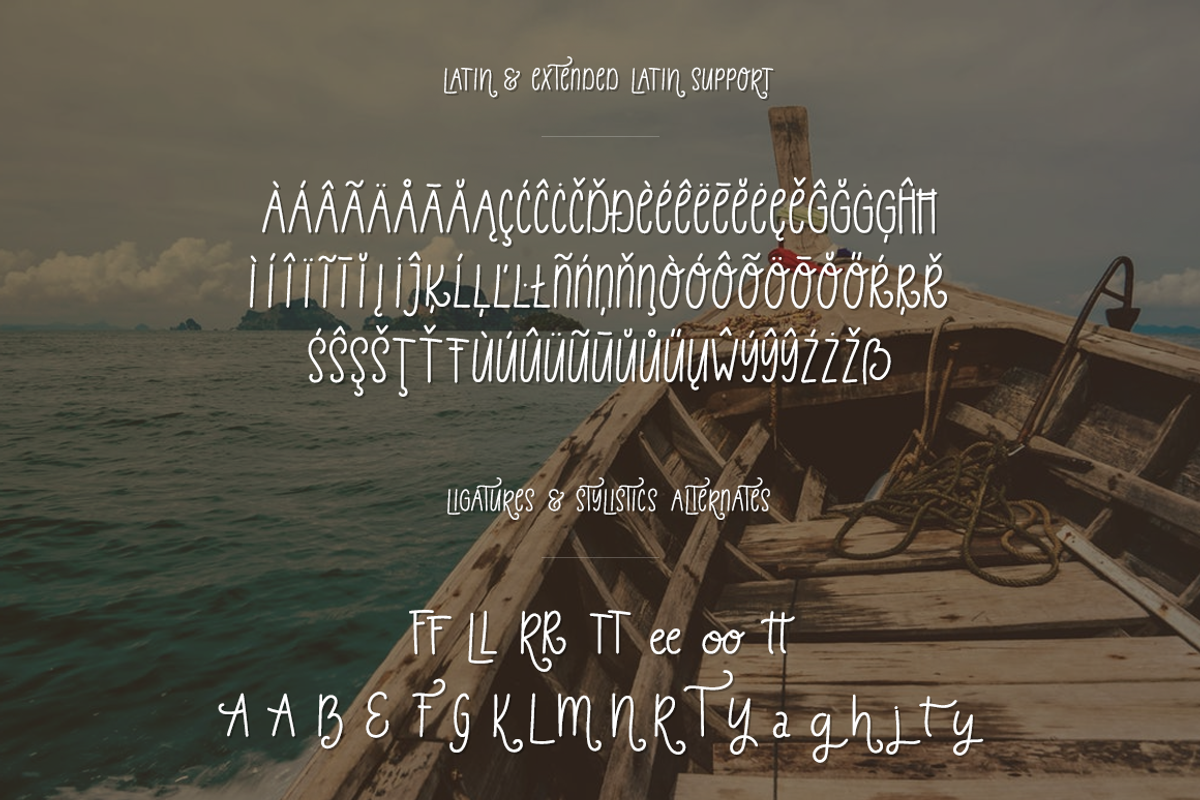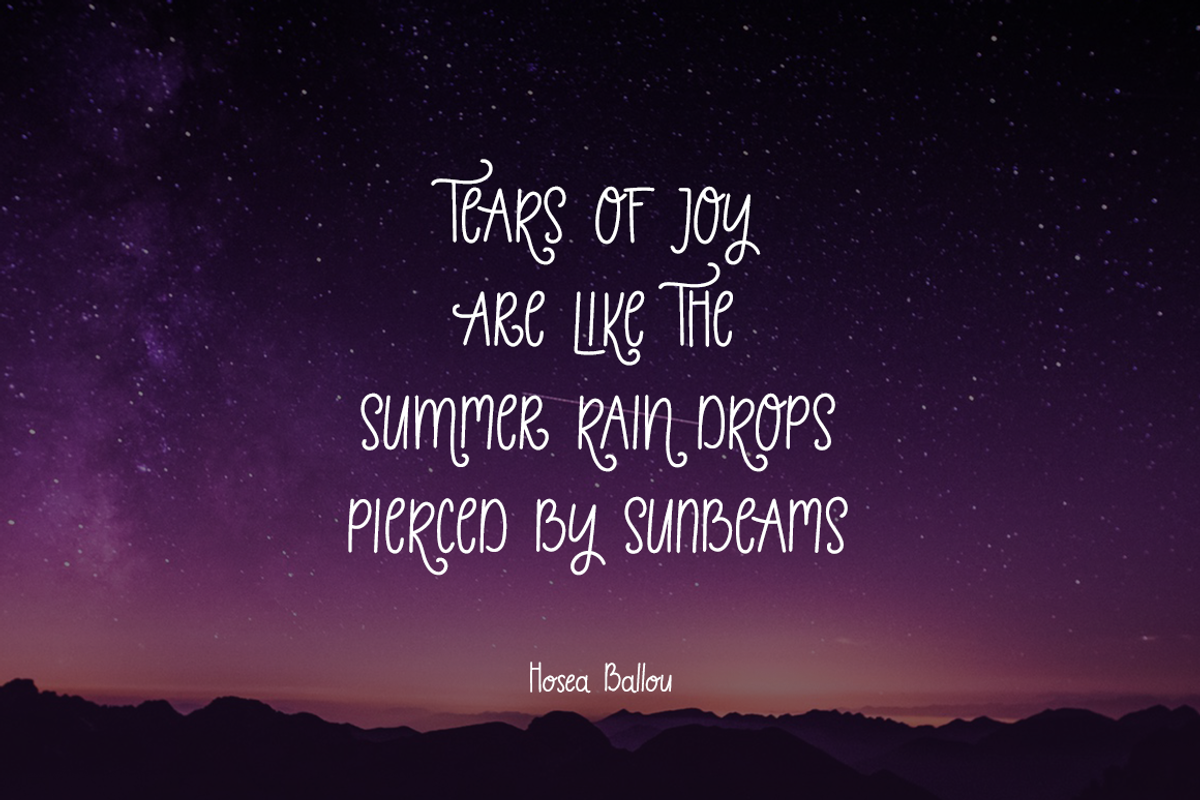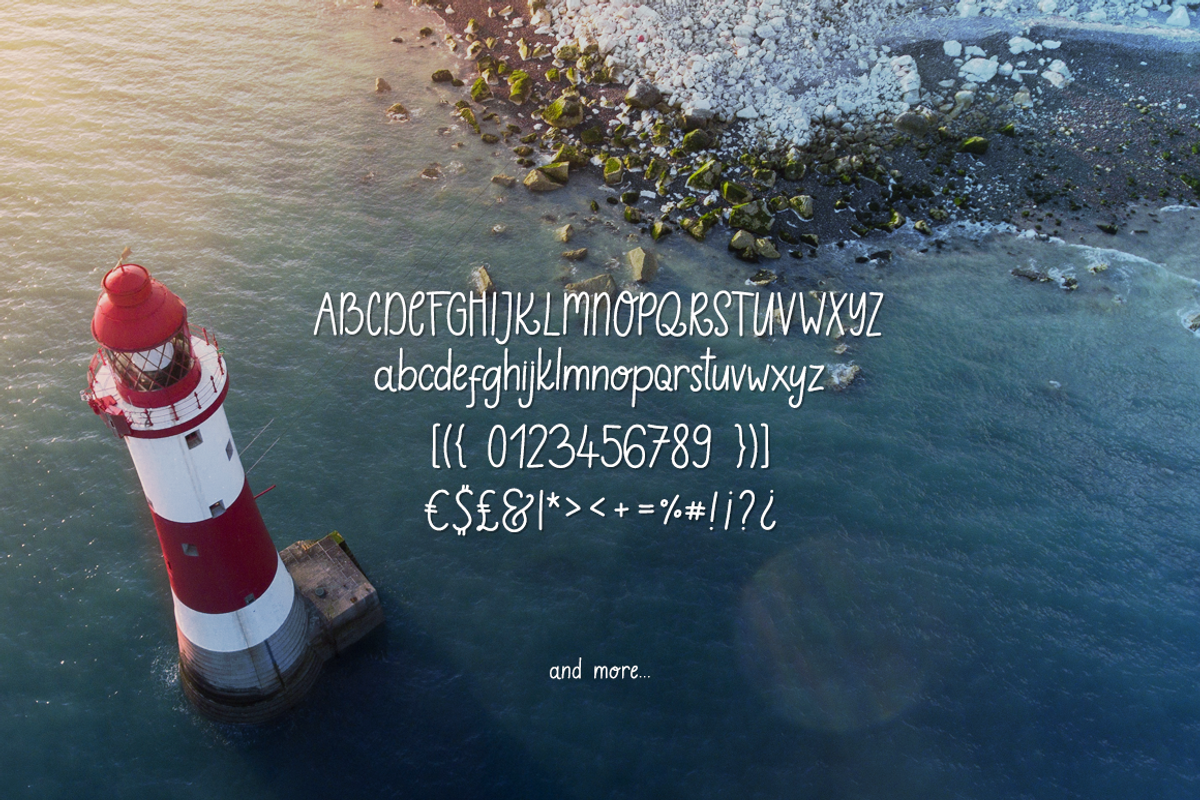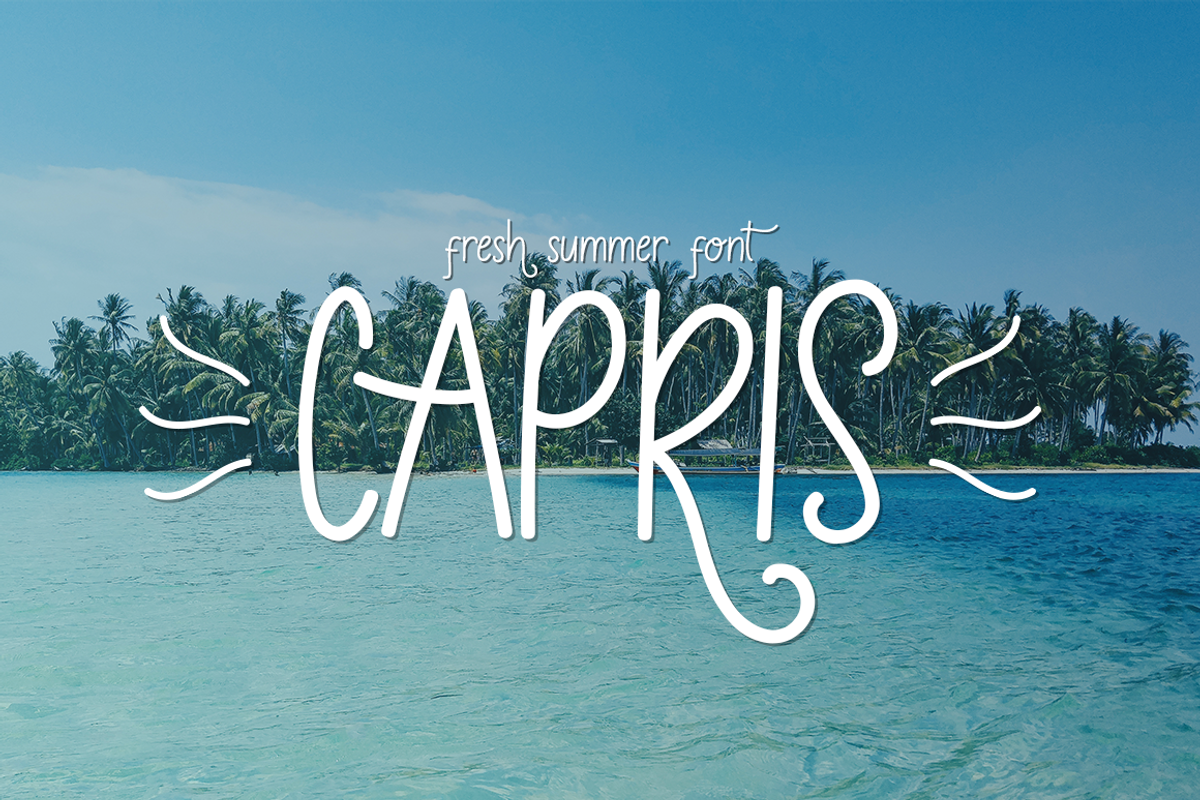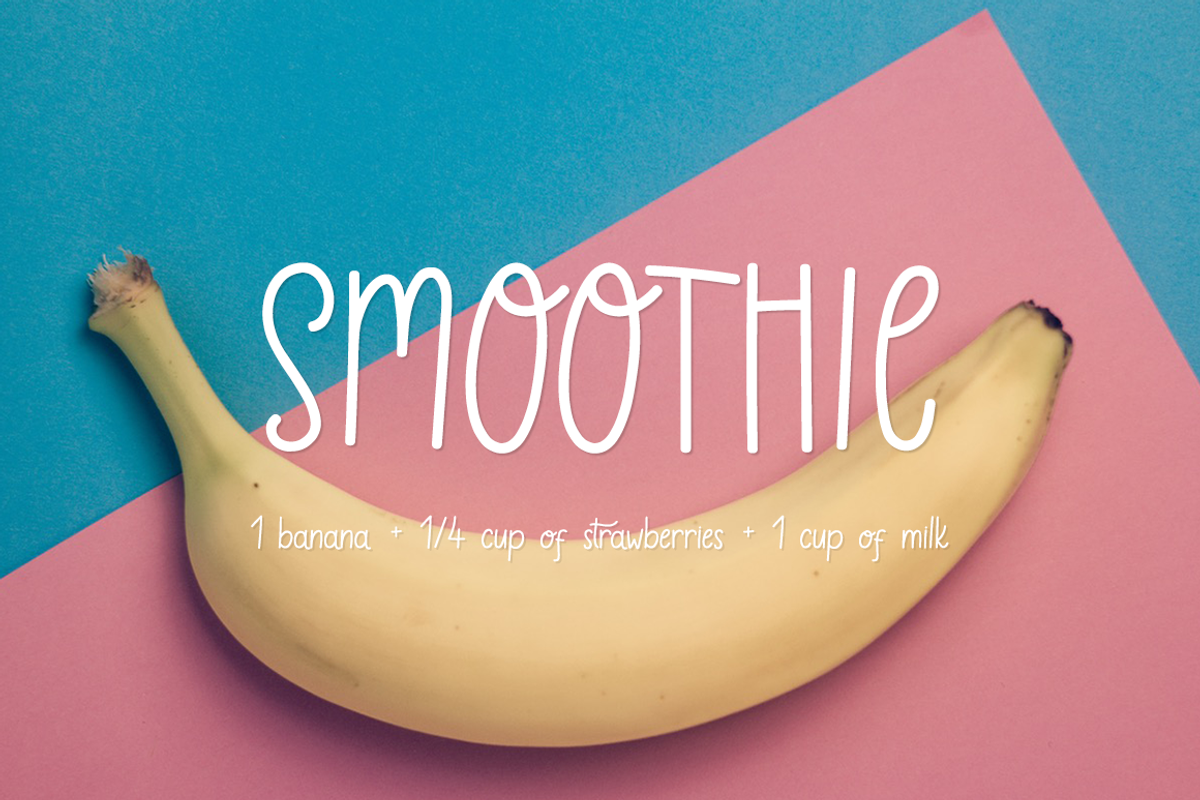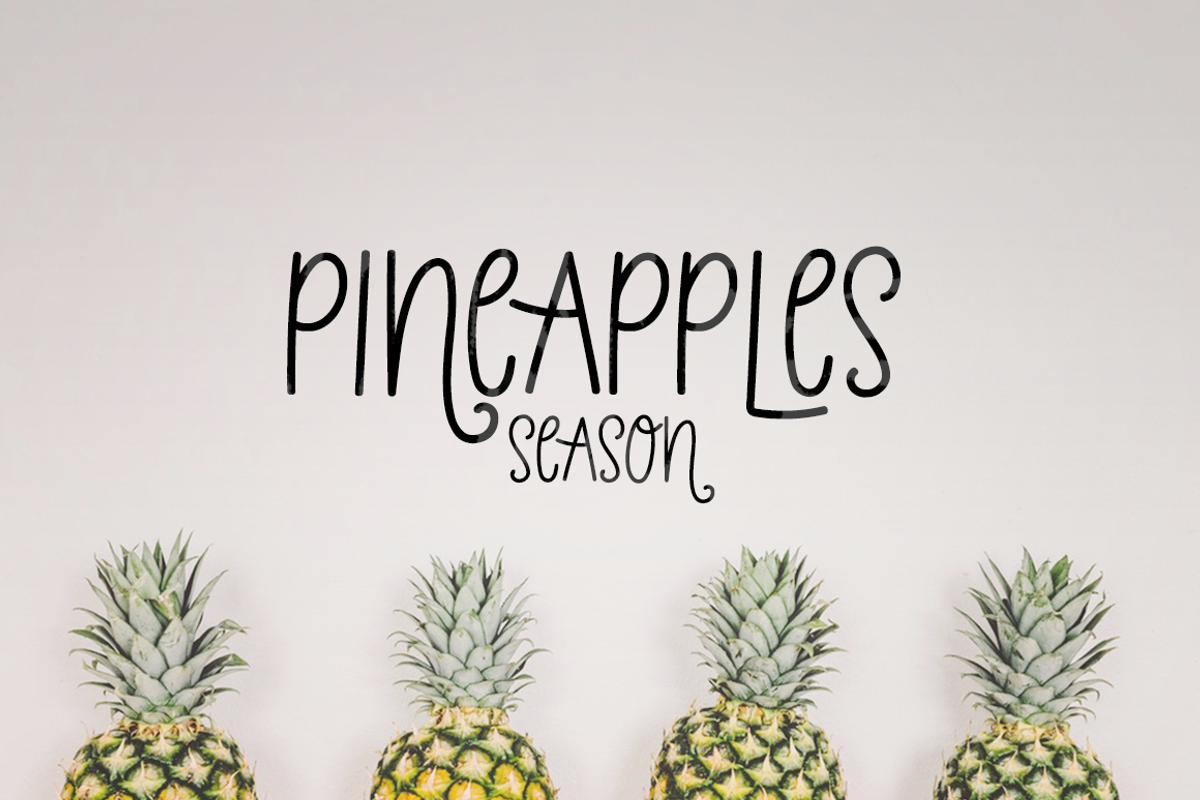
Capris - Fresh Summer Font
Capris - Fresh Summer Font by Junik Studio is a font selected for branding, posters, packaging, typography.
- Capris is a fresh summer font that includes: Lowecase and uppercase letters Latin extended characters, basic currencies, punctations, and nu
- The latin extended characters included in Capris are those that are used in the following languages: Albanian, Azerbaijani, Bosnian, Catalan
Capris - Fresh Summer Font by Junik Studio fits naturally into Branding, posters, packaging, typography.